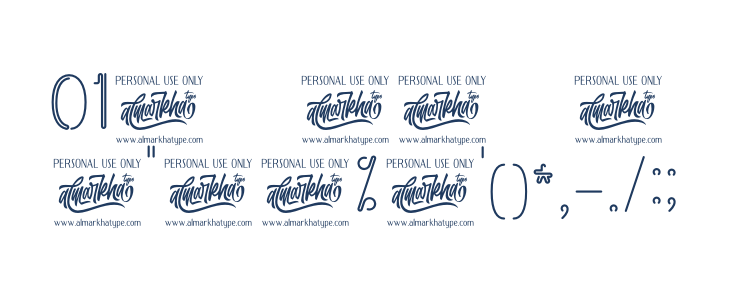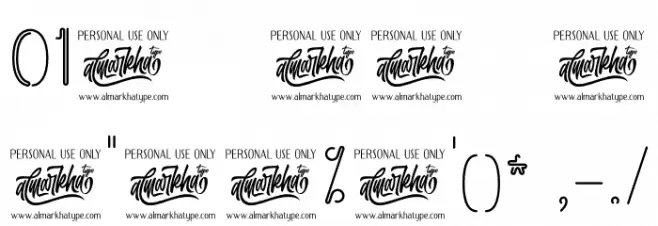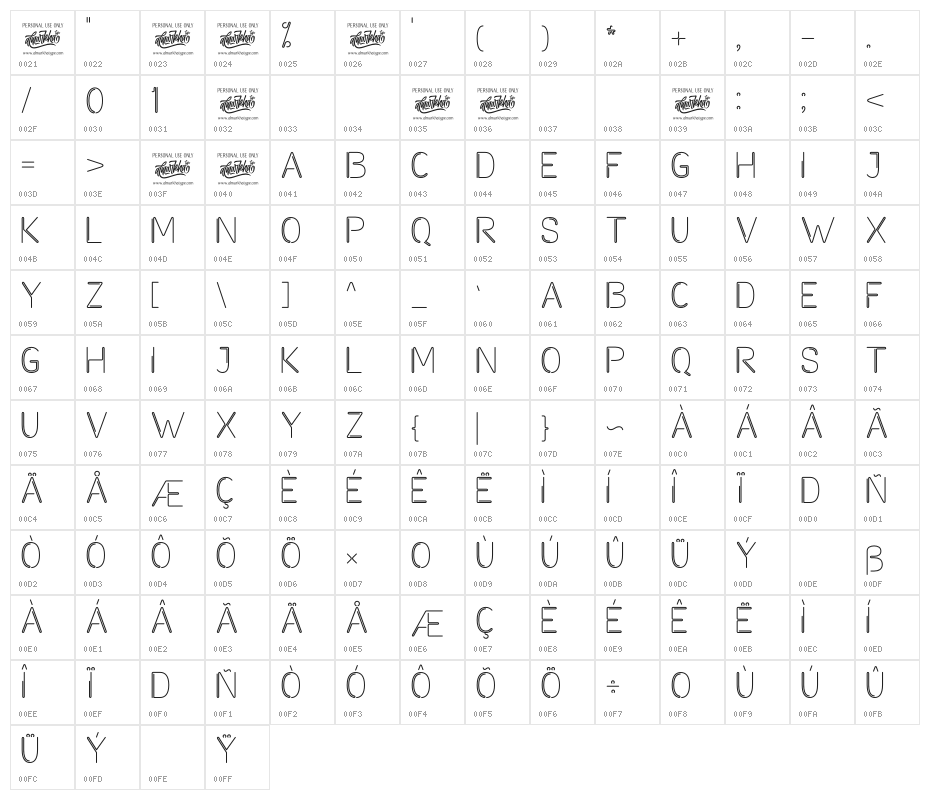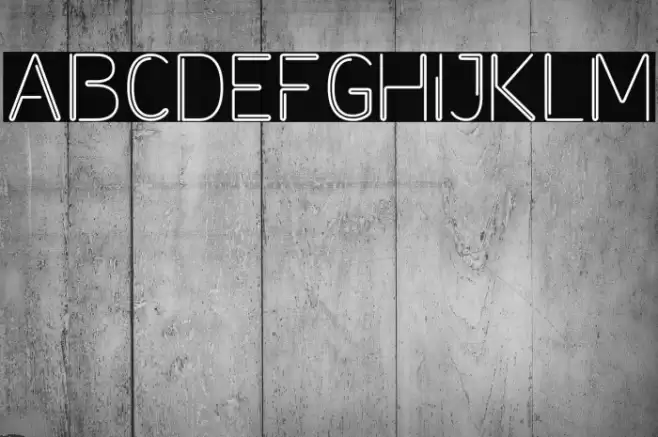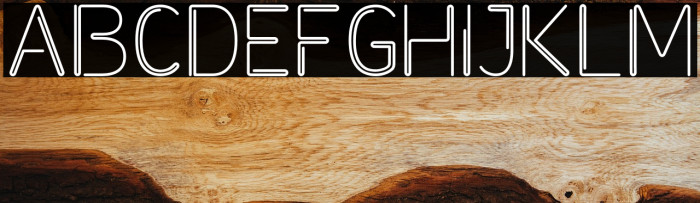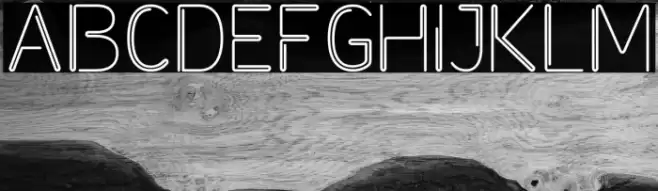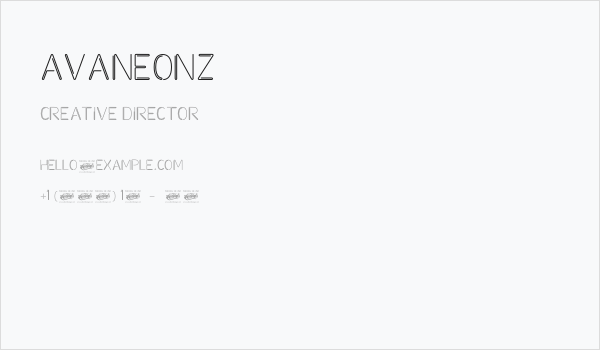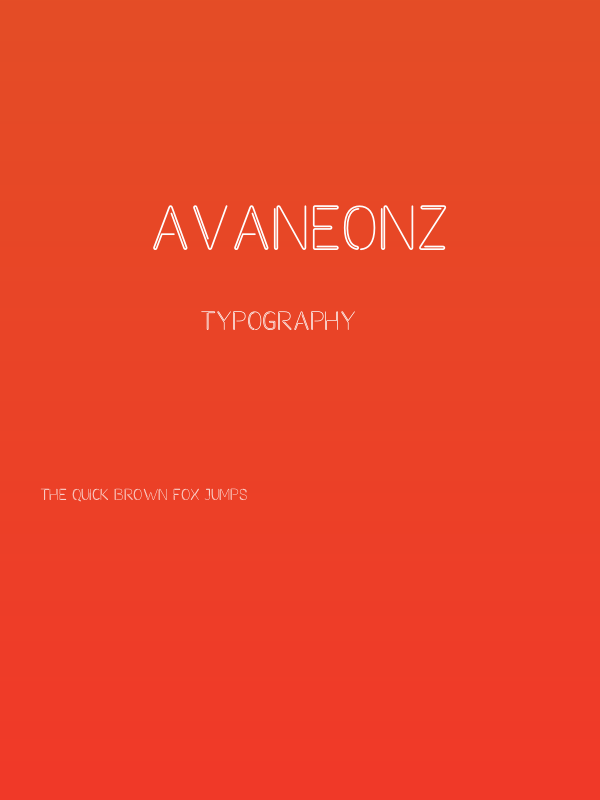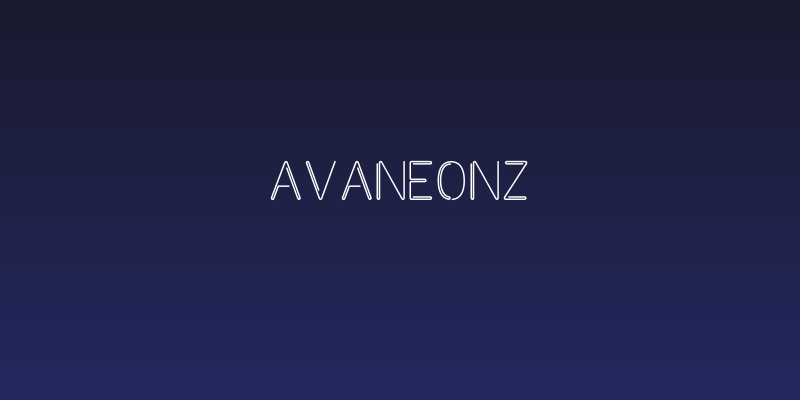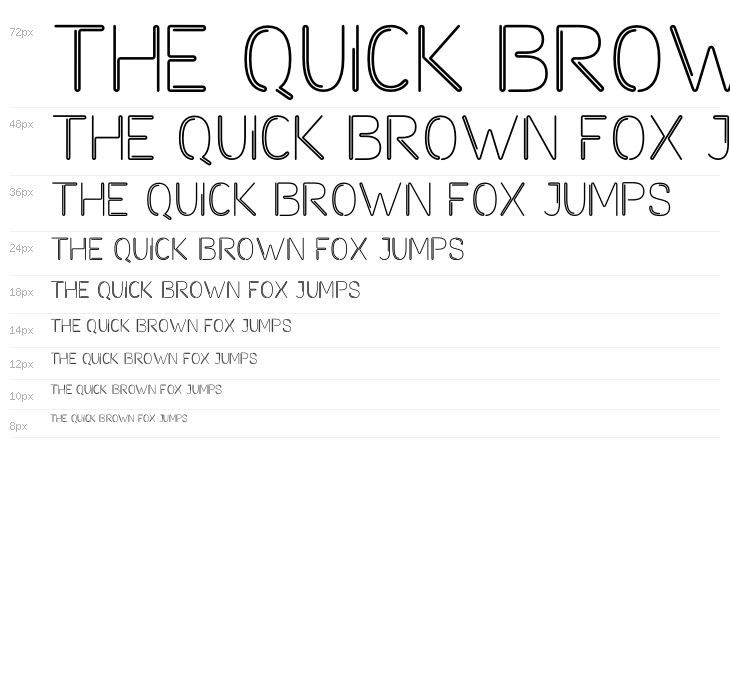
Avaneonz Font
Avaneonz Description
This font features a modern and geometric design with clean lines and a minimalist aesthetic. Each character is constructed with a consistent stroke width, giving it a uniform and structured appearance. The uppercase letters are bold and prominent, while the lowercase letters maintain the same geometric style, ensuring readability and visual harmony. The numbers and special characters follow the same design principles, making them easily distinguishable. This font's open and airy feel is achieved through its wide character spacing, which enhances its legibility. Its overall style is contemporary and sleek, making it suitable for a variety of design applications.
| Proposed Projects | Ideal for branding, logos, headlines, and modern web design projects. |